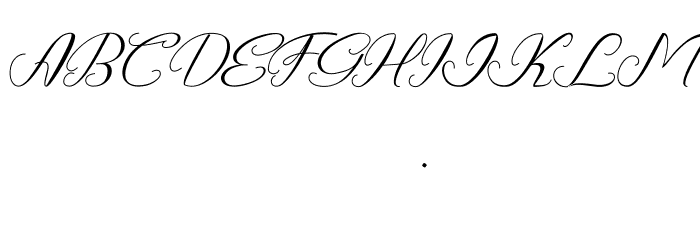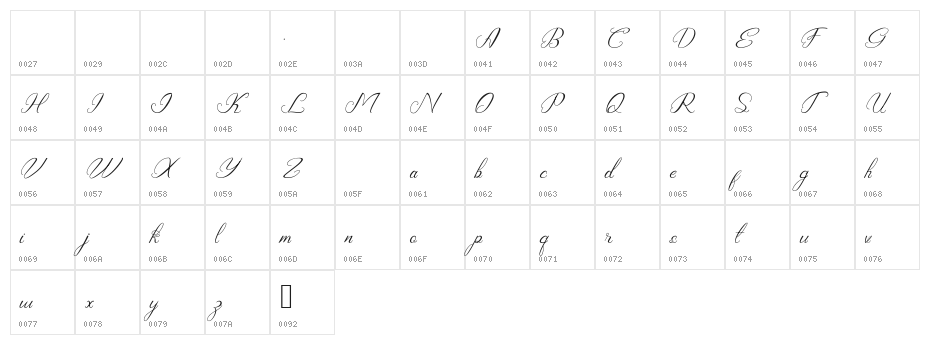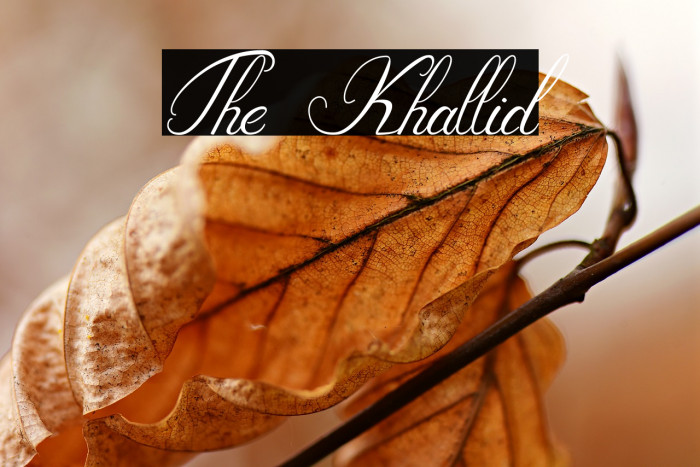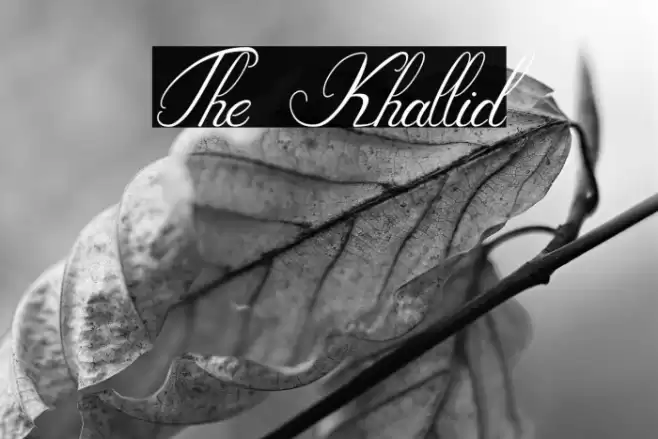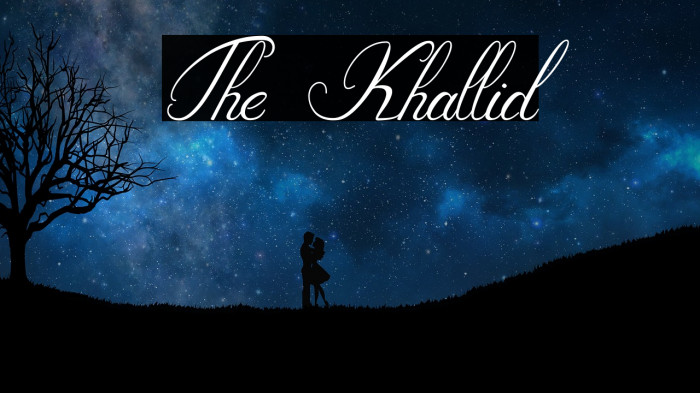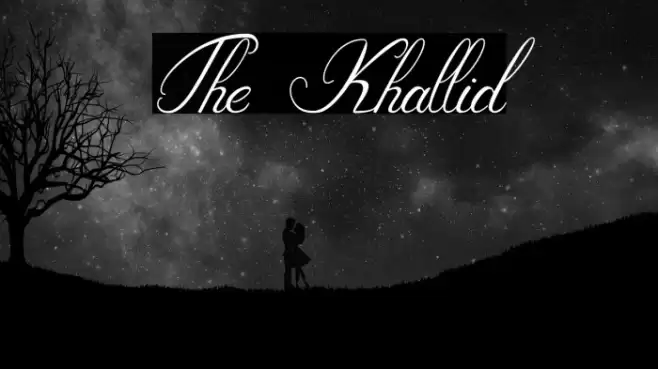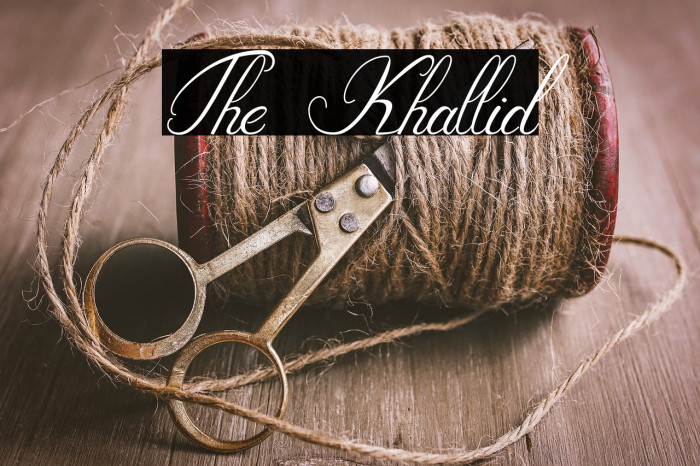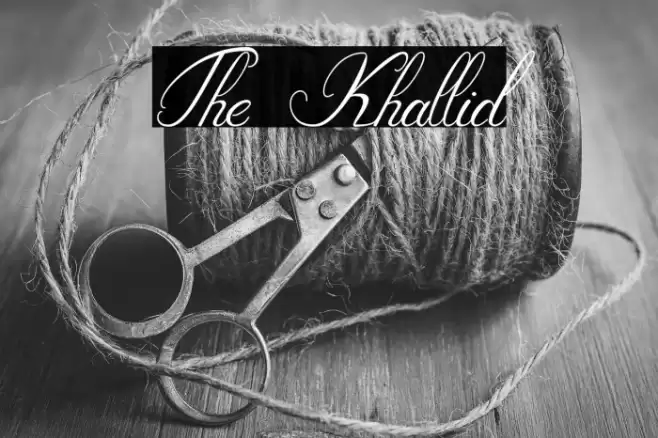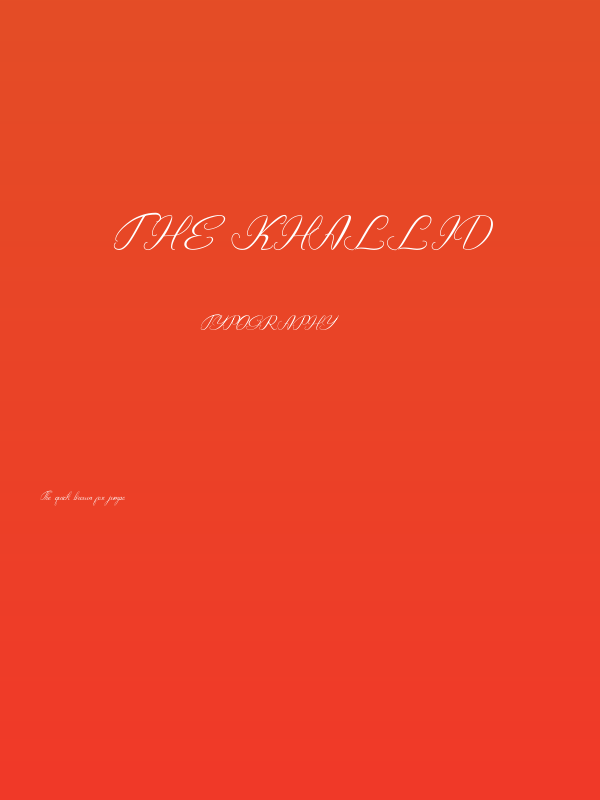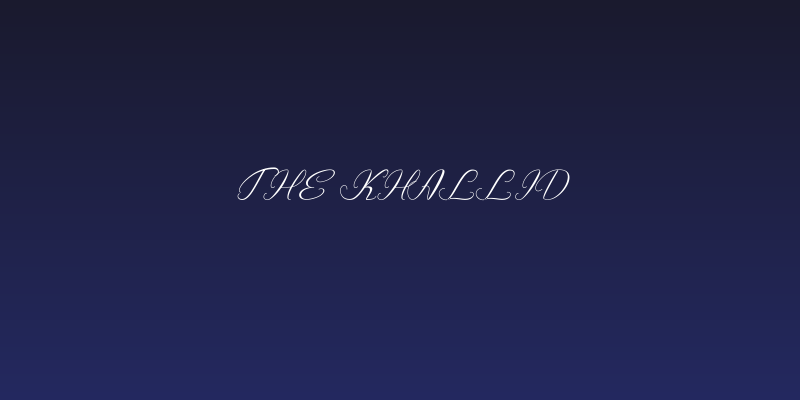
The_Khallid Font
The_Khallid Description
This elegant script font features flowing, interconnected letters with a classic and sophisticated appearance. The uppercase characters are adorned with delicate swashes and flourishes, adding a touch of refinement and grace. The lowercase letters maintain a consistent style, with smooth curves and loops that enhance readability while preserving the decorative nature of the font. The overall design is reminiscent of traditional calligraphy, making it suitable for formal and elegant applications. The font's intricate details and stylish flair make it ideal for projects that require a touch of luxury and sophistication.